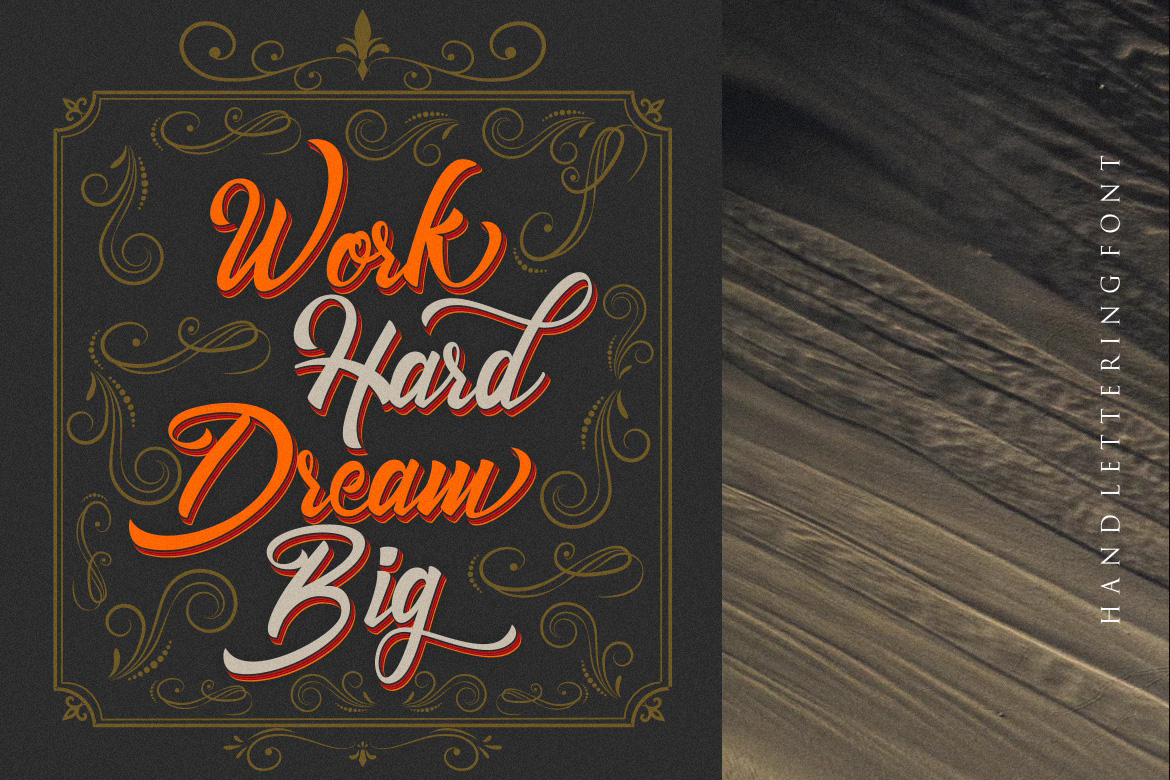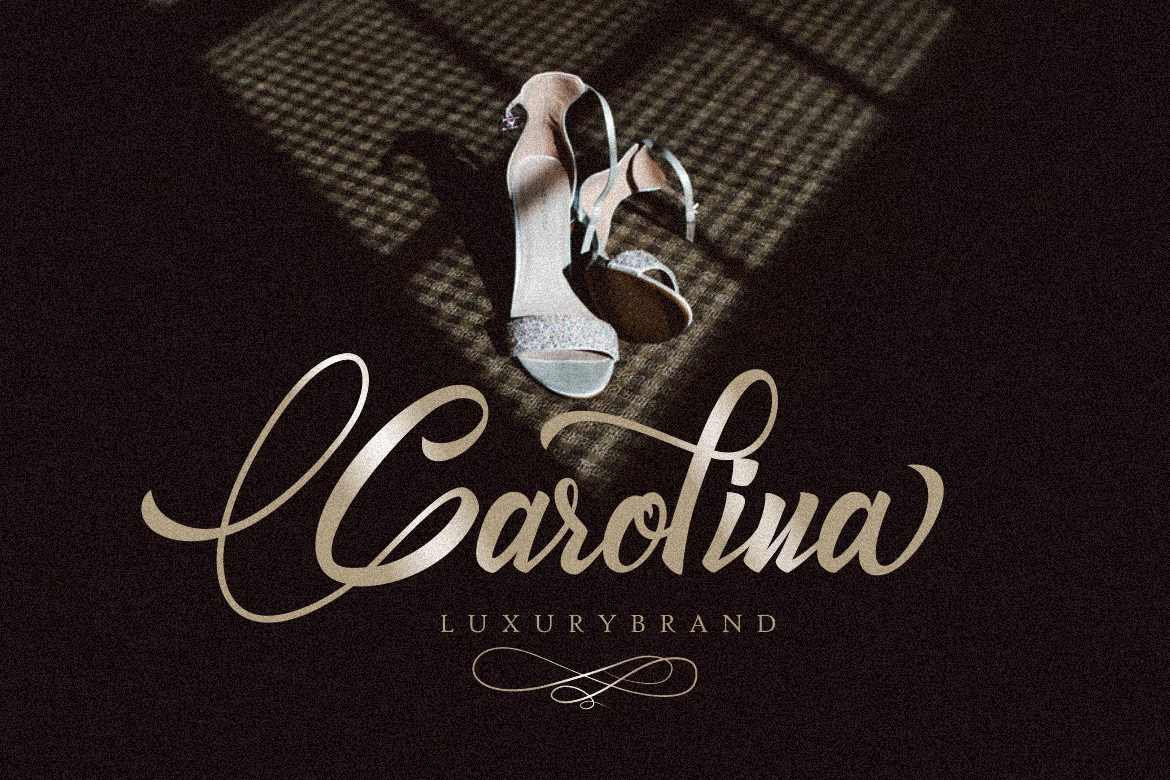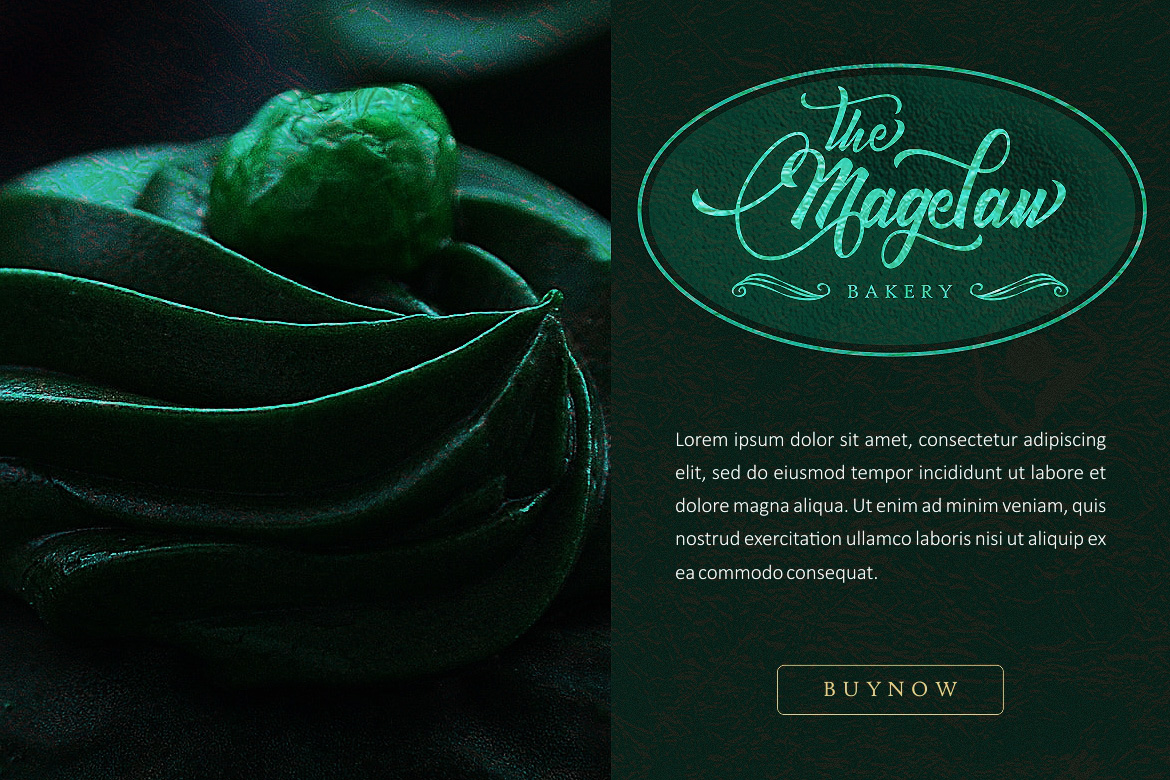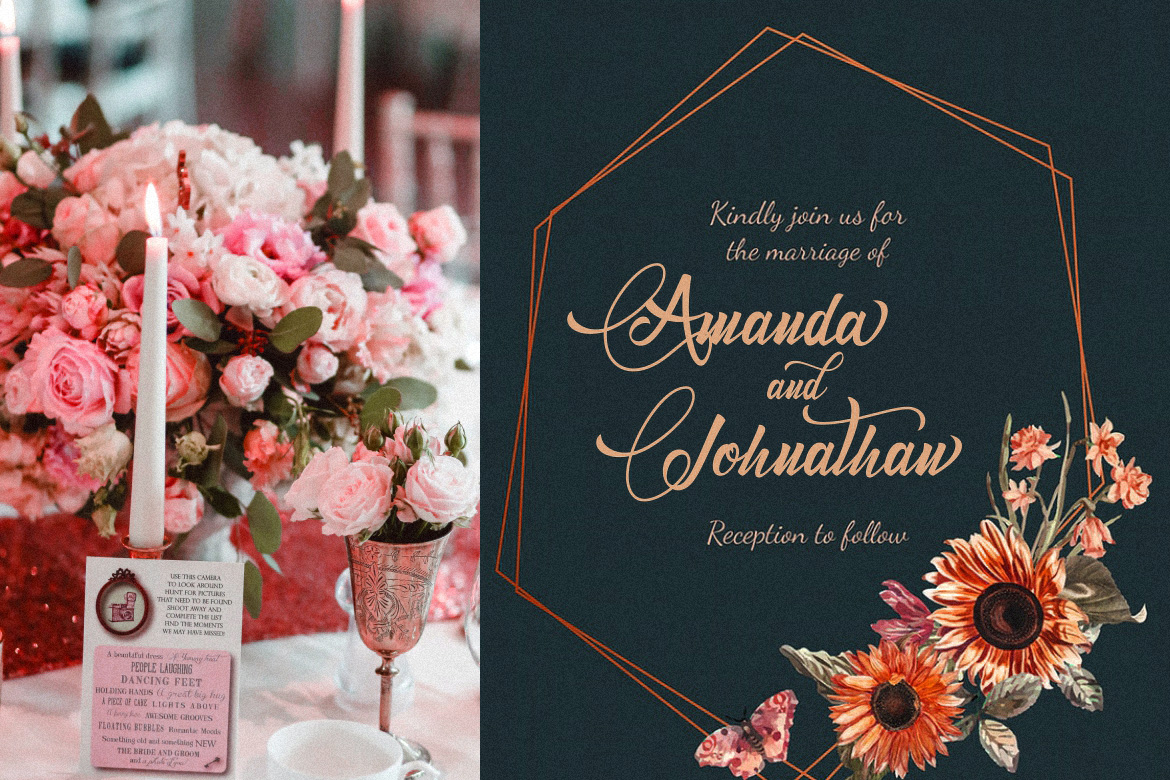
Mondena Free Font
Mondena Free Font is a Luxury bold script font. This collection of scripts is perfect for your logo product or wedding invitations. This free typeface was designed by a talented Hansย Co. If you like it donโ€™t forget to check out the full version.